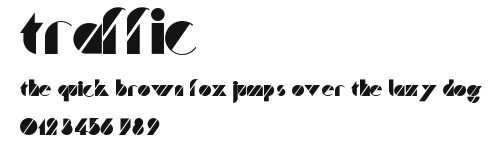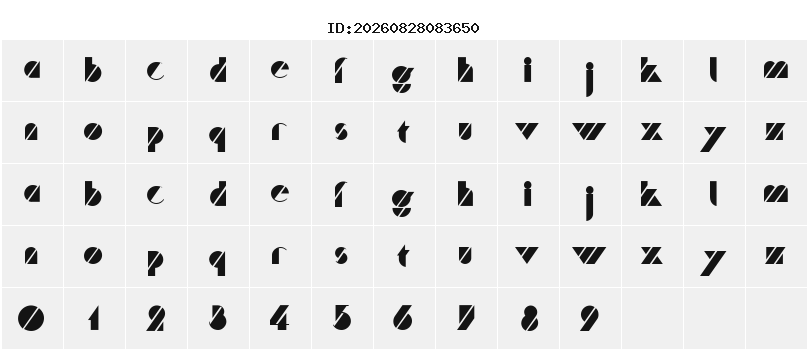
Traffic Preview
• Font Name: Traffic
• Font ID: TrafficITC-Normal
• Full Font Name: TrafficITC-Normal
• PostScript Name: TrafficITC-Normal
About Traffic.ttf
Traffic.ttf is a modern, elegant sans-serif font designed for ultimate readability and visual harmony. Perfect for branding, headlines, web design, and print materials.